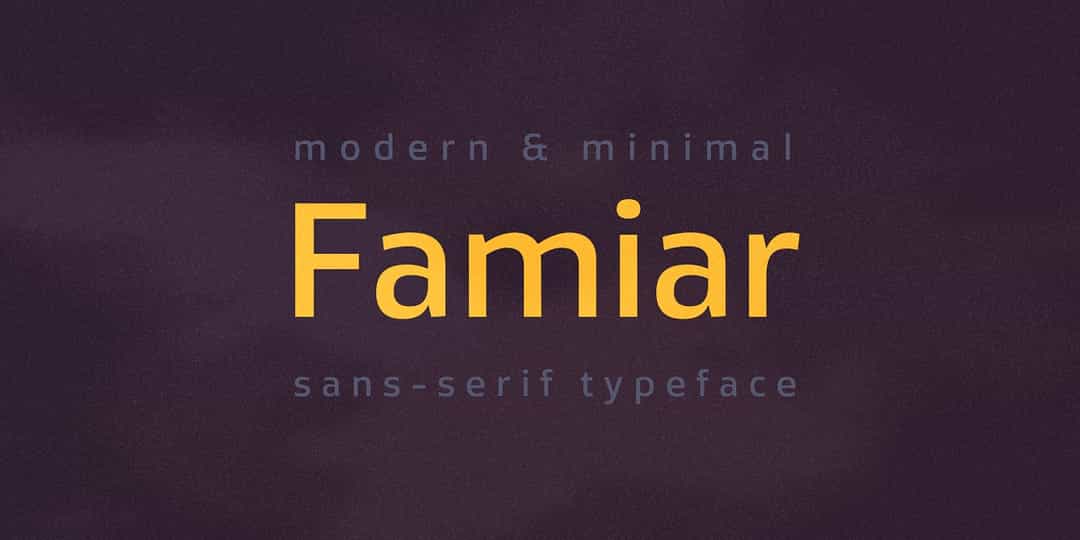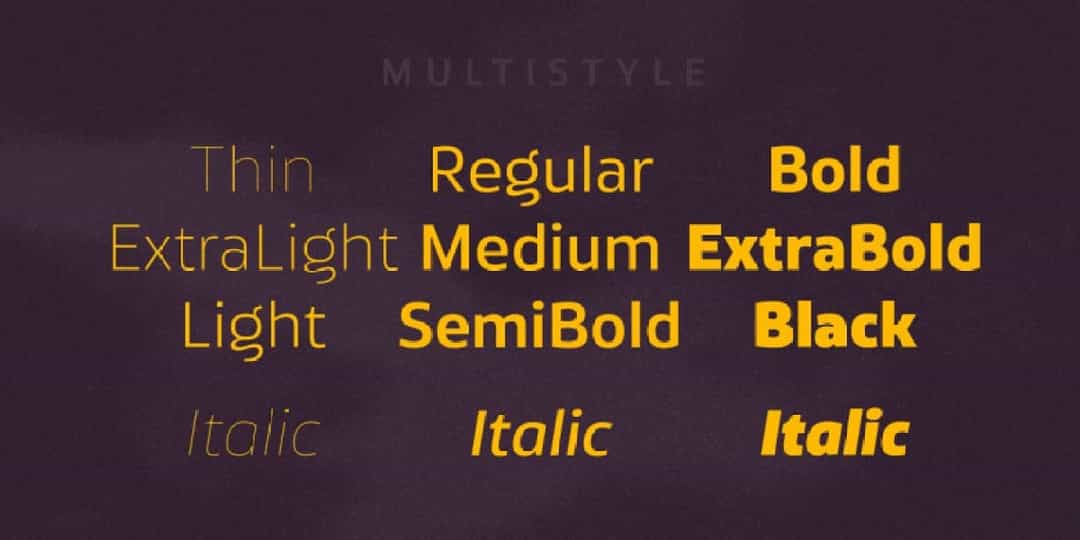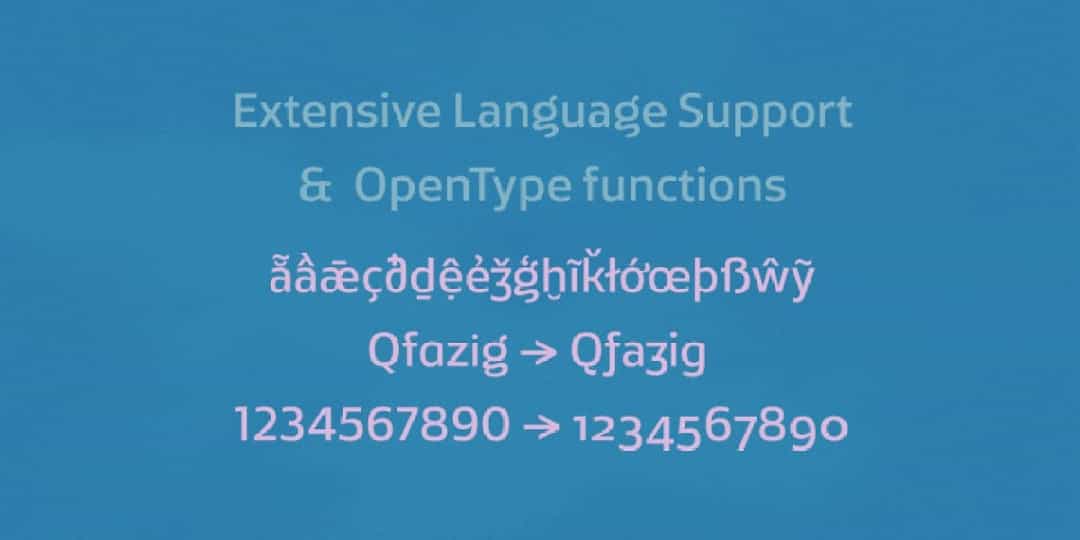
Famiar can be described as an elegant Sans Serif font family influenced by brutalist architecture. Perfect for adding extra sophistication to geometric typo-centric designs, Famiar was designed by Mans Greback between 2020-2022 with its distinct contemporary style making it suitable for a range of modern projects.